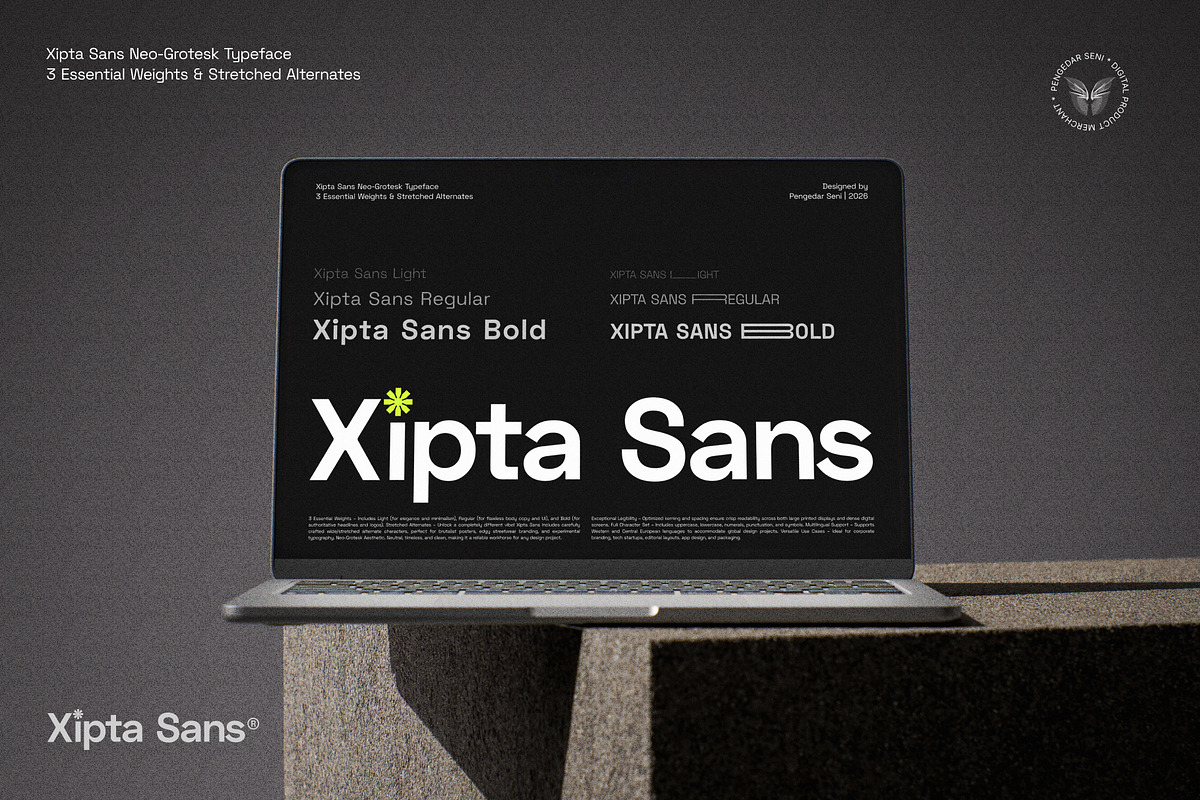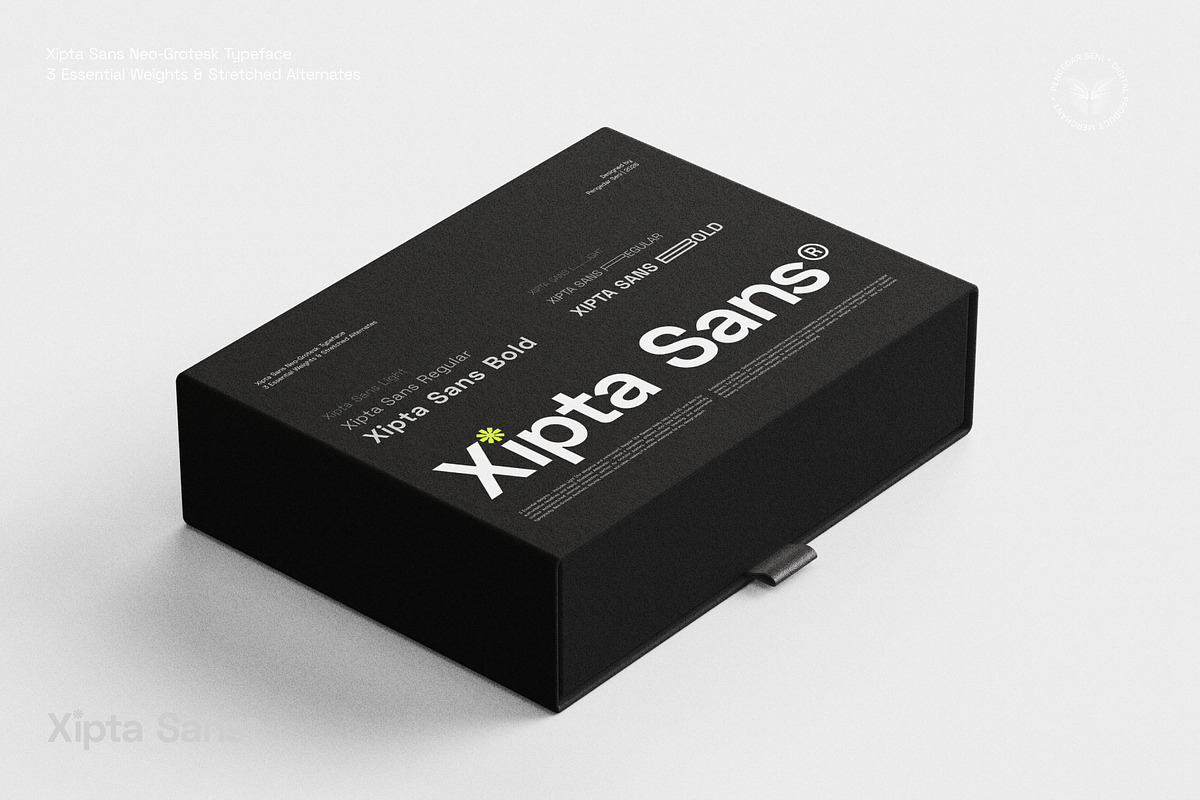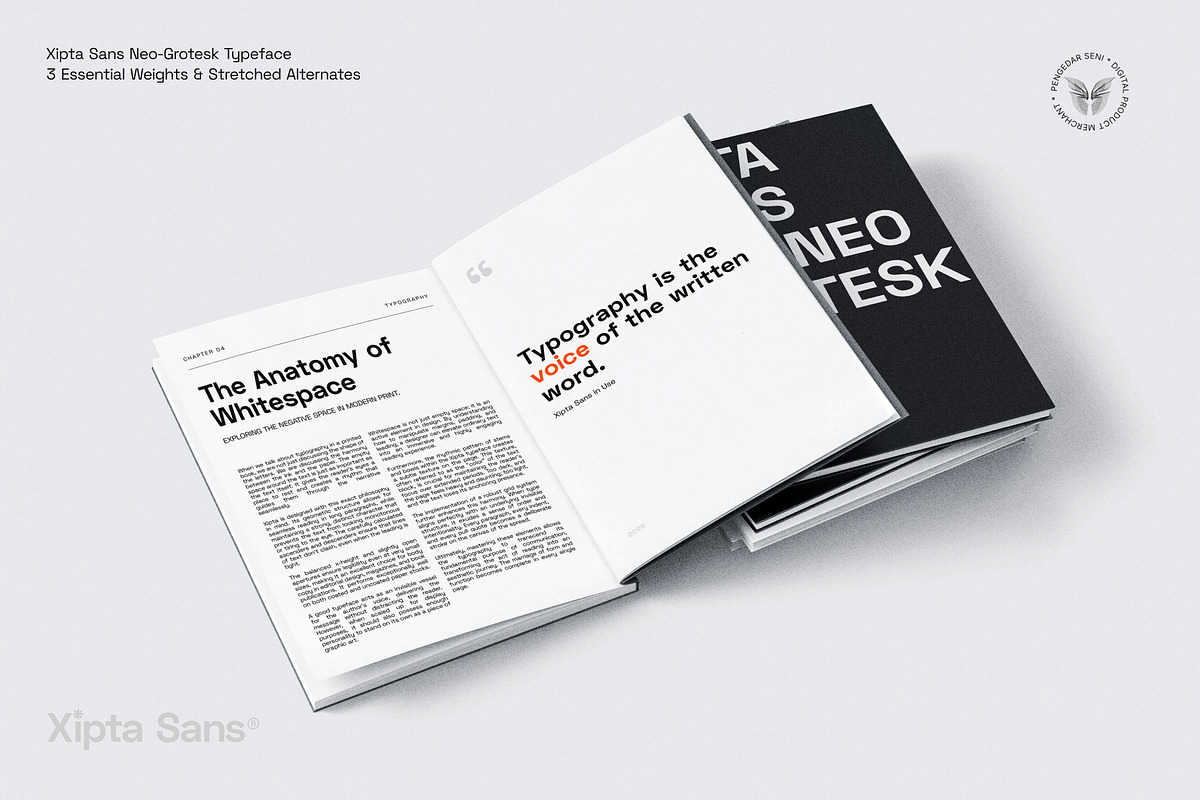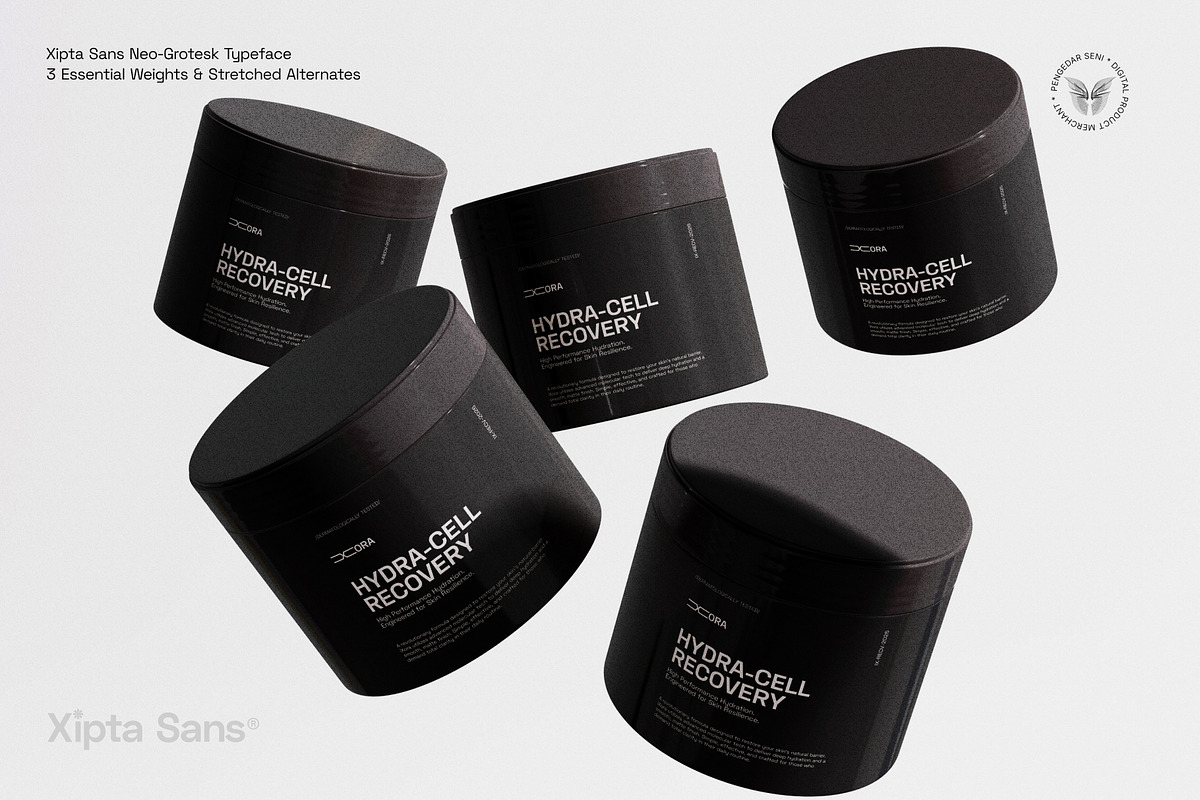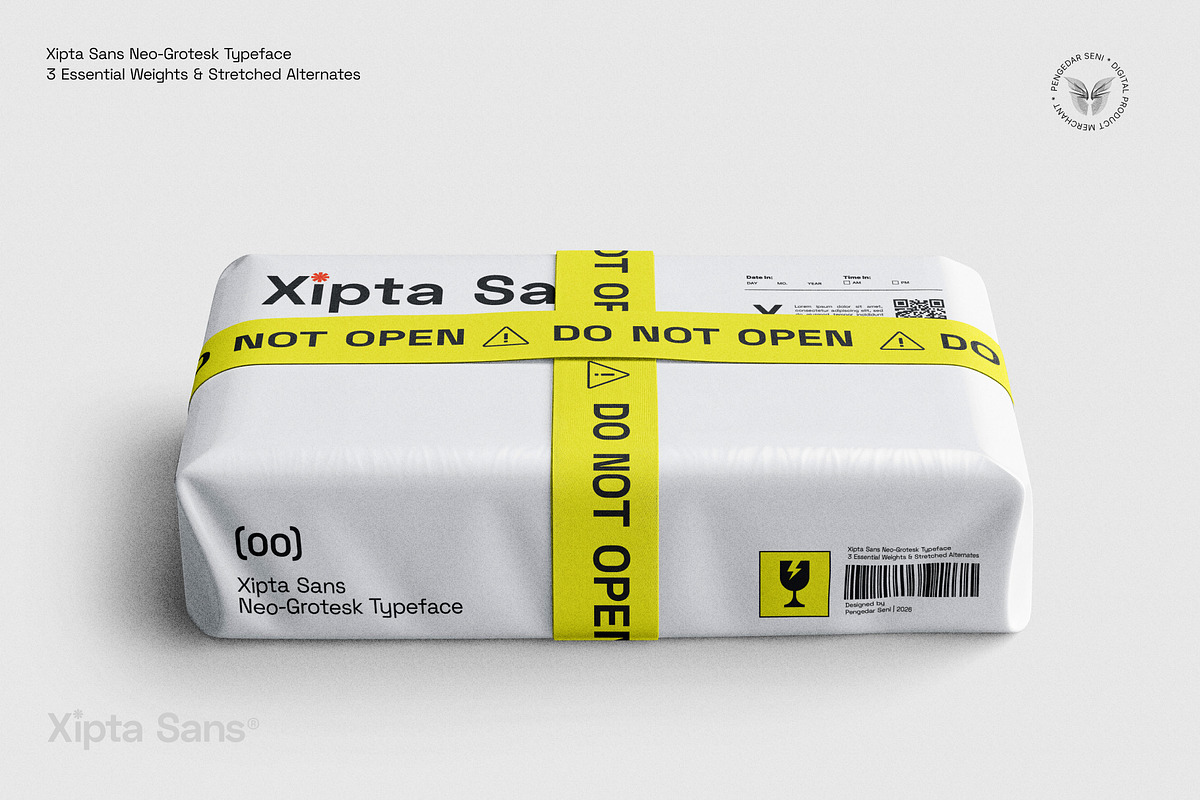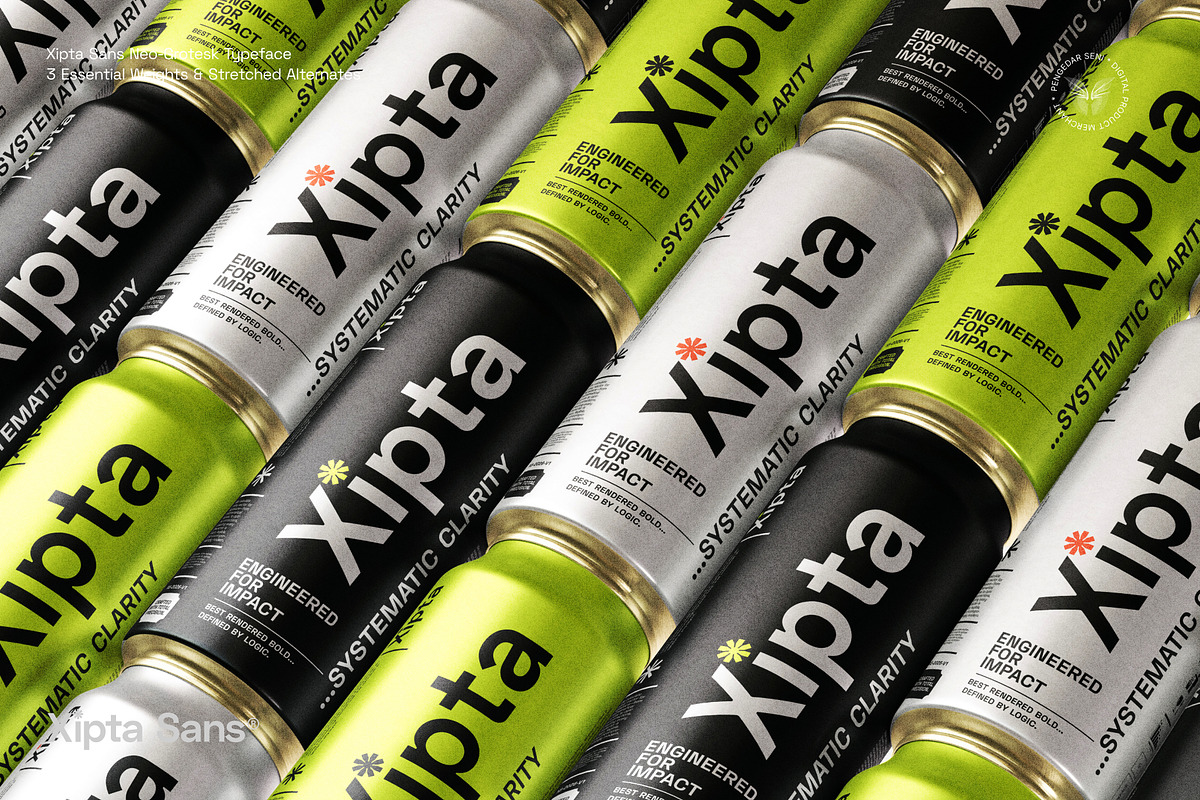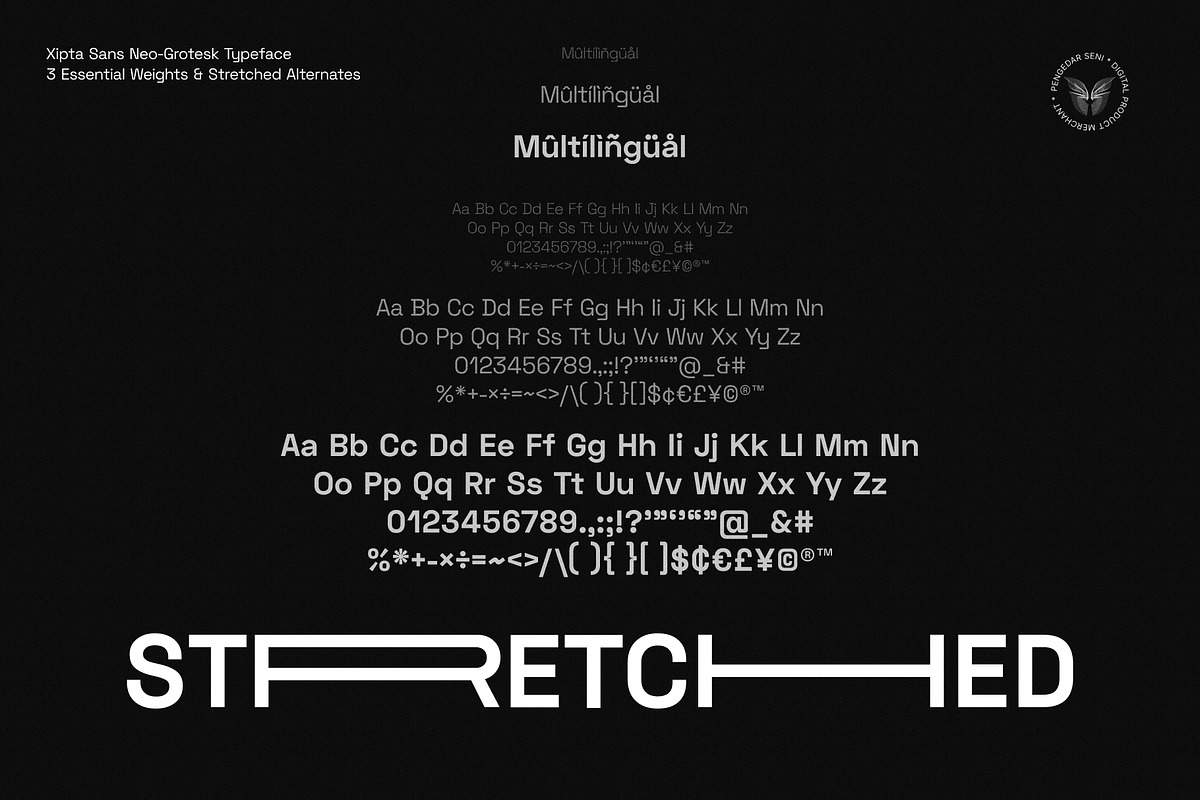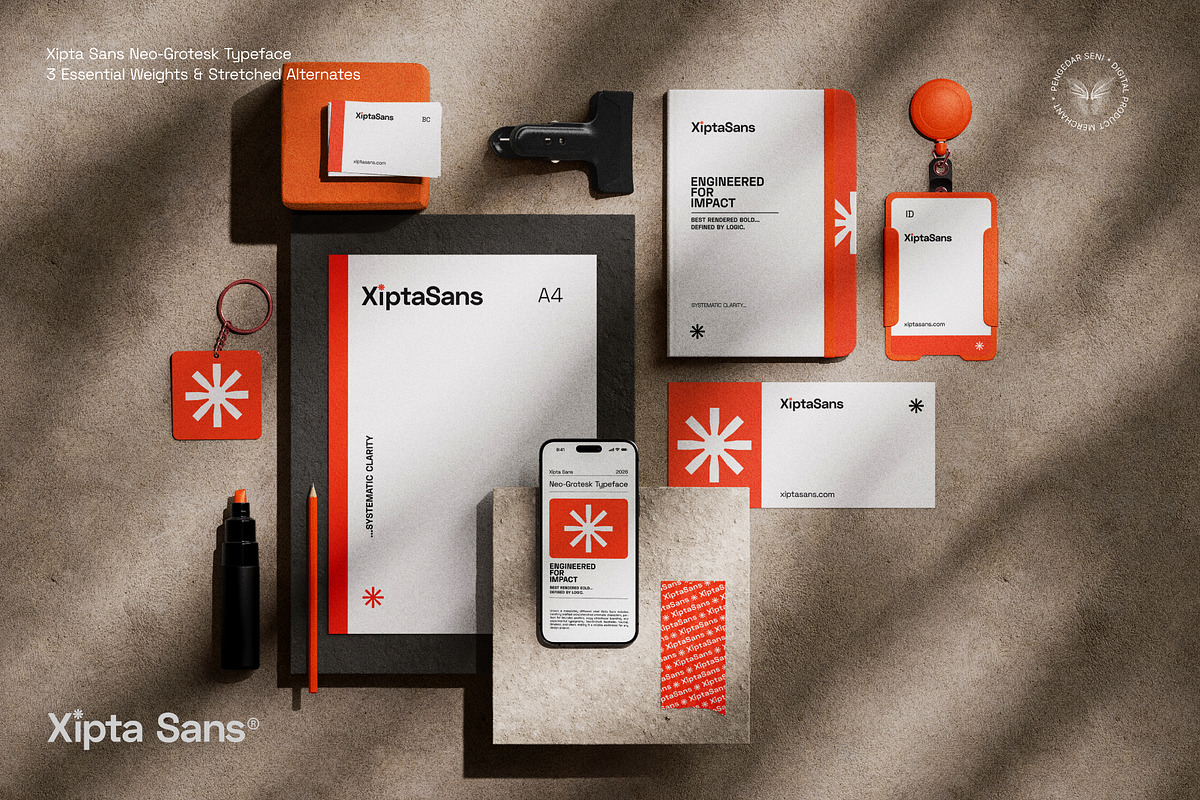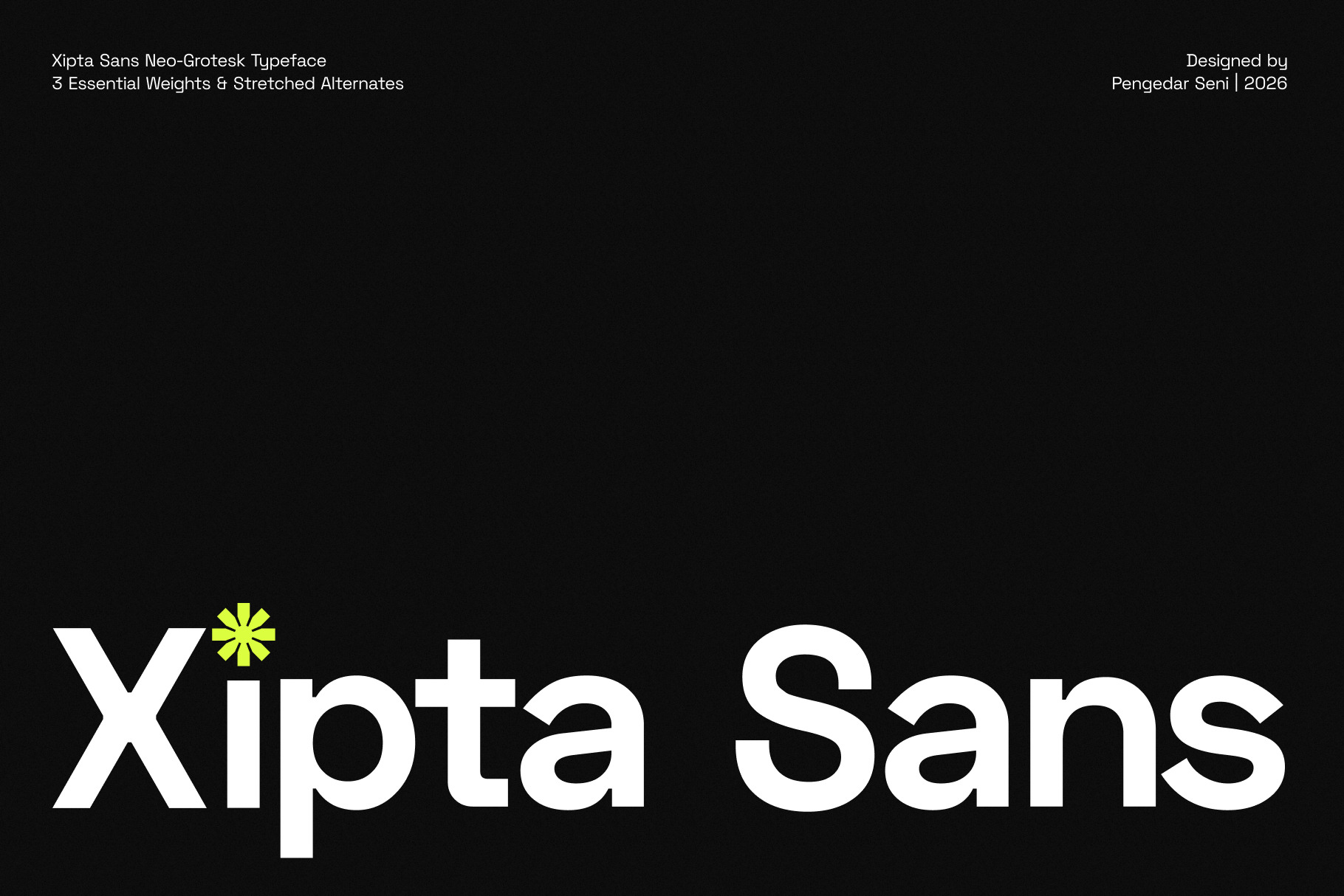
Xipta Sans – Neo Grotesk Typeface
Xipta Sans is a modern, neo-grotesk typeface family designed for absolute clarity and versatility. Rooted in the functional and neutral aesthetics of classic grotesk typography, Xipta Sans brings a contemporary edge that perfectly balances structure and flow.
Featuring 3 essential weights—Light, Regular, and Bold—this typeface family is built to handle everything from high-impact headlines to extensive body copy. Whether you are designing a clean UI/UX interface, a commanding brand identity, or a sophisticated editorial layout, Xipta Sans provides the structural foundation you need.
The Meaning Behind Xipta
✅ Cipta (Creation and Purpose) – Derived from the Indonesian word meaning "to create" or "to invent," representing the fundamental drive to build.
✅ X (The Infinite Variable) – Symbolizes limitless possibilities, cross-collaboration, and future-forward thinking.
✅ Xipta Sans – The intersection of purposeful creation and infinite design potential.
Why Choose Xipta Sans?
✅ 3 Essential Weights – Includes Light (for elegance and minimalism), Regular (for flawless body copy and UI), and Bold (for authoritative headlines and logos).
✅ Stretched Alternates – Unlock a completely different vibe! Includes carefully crafted wide/stretched alternate characters, perfect for brutalist posters, edgy streetwear branding, and experimental typography.
✅ Neo-Grotesk Aesthetic – Neutral, timeless, and clean, making it a reliable workhorse for any design project.
✅ Exceptional Legibility – Optimized kerning and spacing ensure crisp readability across both large printed displays and dense digital screens.
✅ Full Character Set – Complete with uppercase, lowercase, numerals, punctuation, and symbols.
✅ Multilingual Support – Comprehensive support for Western and Central European languages to accommodate global design projects.
✅ Versatile Use Cases – Ideal for corporate branding, tech startups, editorial layouts, app design, and packaging.
Empower your creative vision with Xipta Sans—the structural blueprint for modern typography.